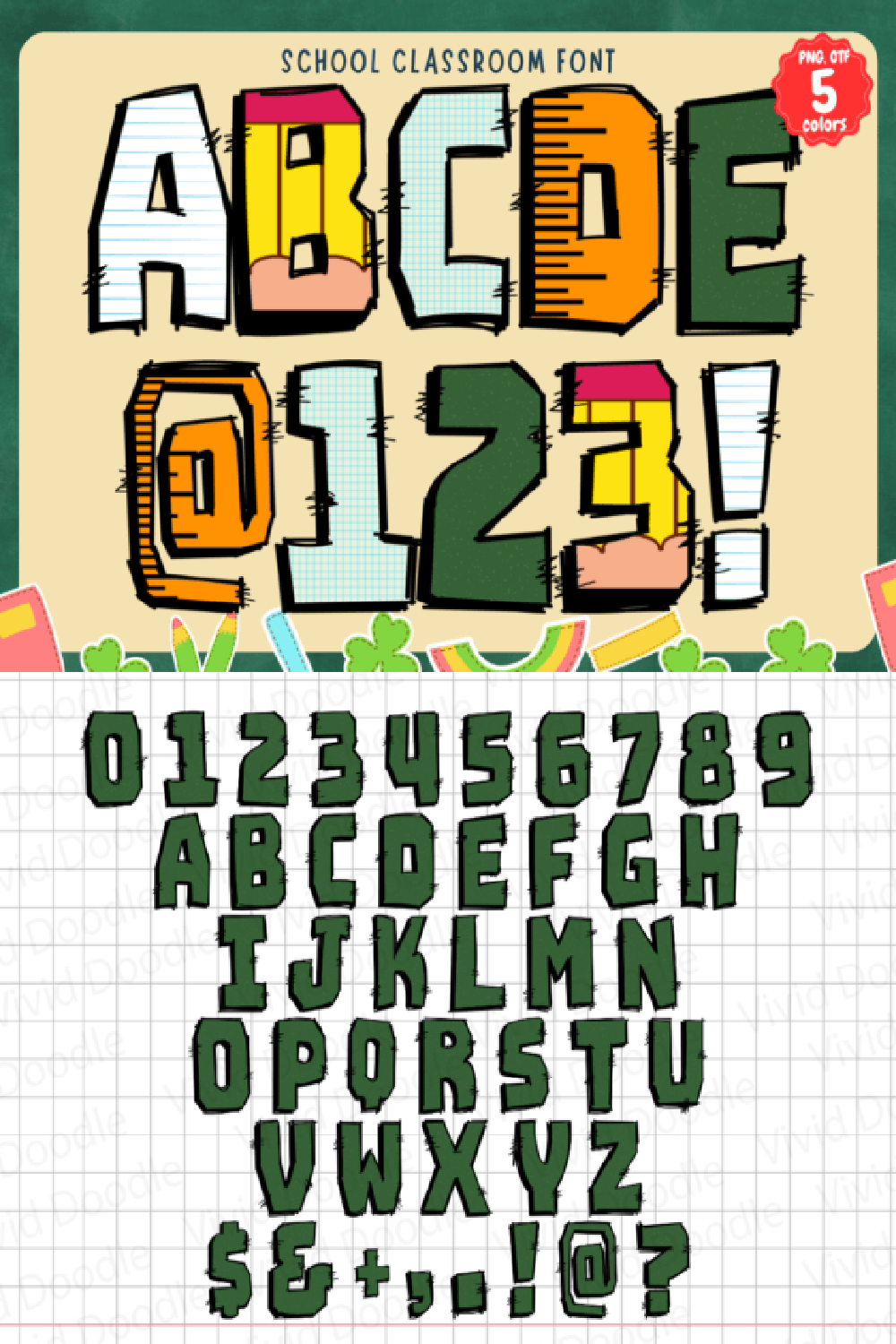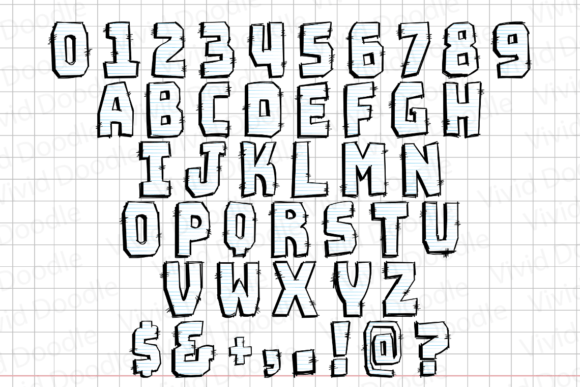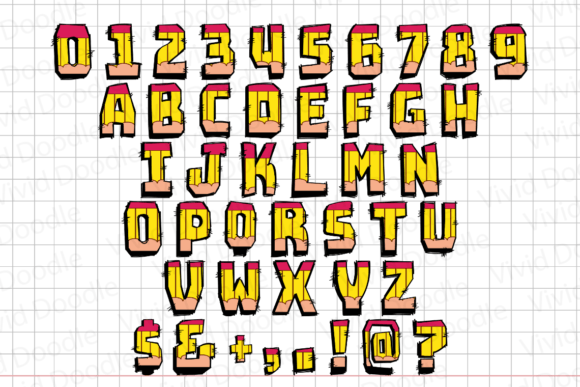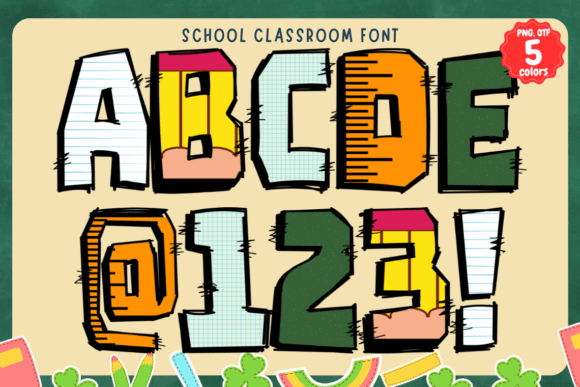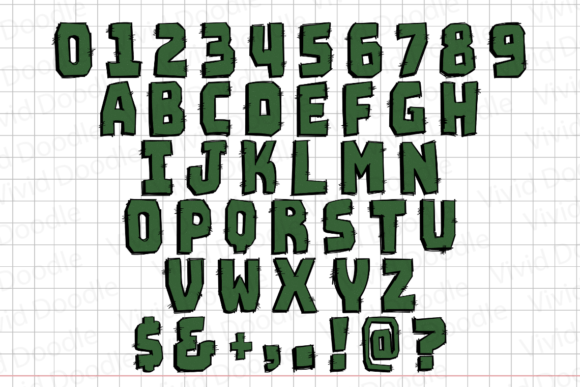
School Classroom Font
About the School Classroom Font
Make a bold statement with School Classroom Font, a powerful and memorable font. Step into creativity with the “School Classroom” font! Designed to capture the lively spirit of a classroom setting, this font is perfect for party themes, holidays, school projects, and creative art. Whether you’re crafting educational materials, designing school event posters, or adding a fun touch to holiday-themed graphics, “School Classroom” brings a playful and educational vibe to your designs. Its versatile style makes it ideal for a wide range of graphic design projects, ensuring your work stands out with a touch of academic charm and creativity. Get ready to inspire and engage with the “School Classroom” font!